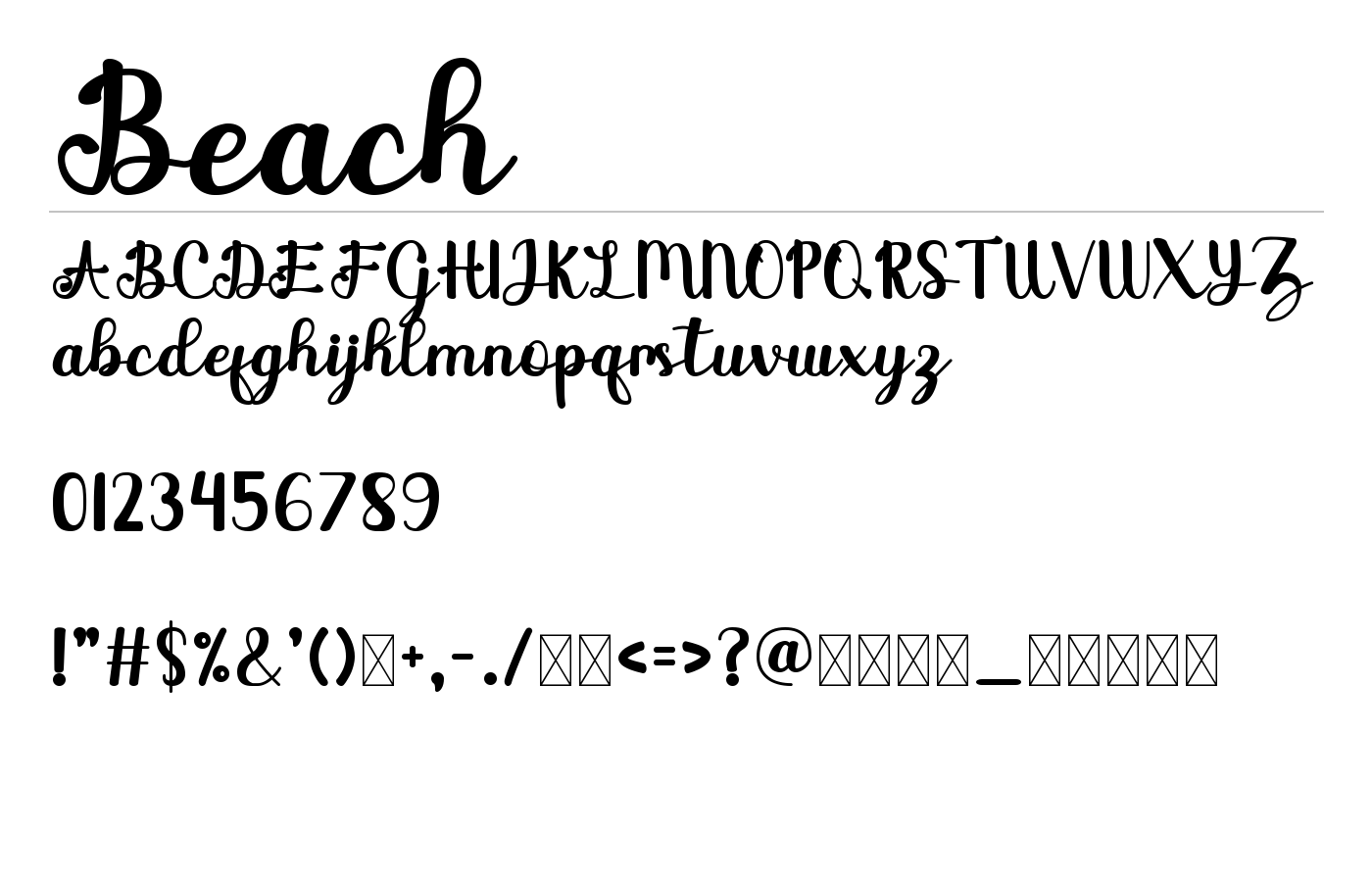
Beach Font is a playful and casual script typeface with a hand-drawn feel, featuring smooth, rounded strokes and whimsical flourishes, especially in its uppercase letters. Its moderately high x-height and consistent stroke weight make it legible and friendly, perfect for projects that want to evoke a relaxed, beachy, or fun vibe. This font works well in branding, invitations, and lifestyle-oriented designs seeking a cheerful and approachable look.
Beach Font
About Beach Font
| Font family | Beach Font |
| Designer | Faris Graphic Art |